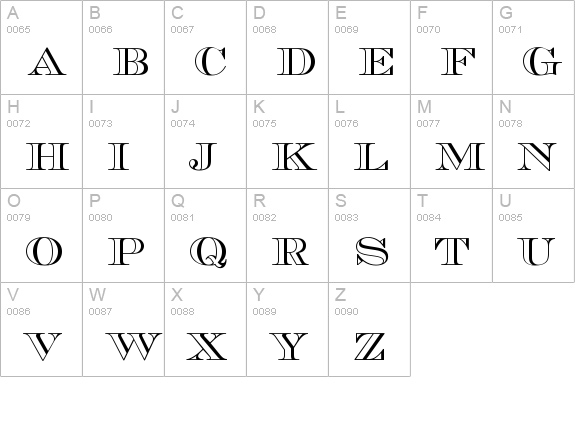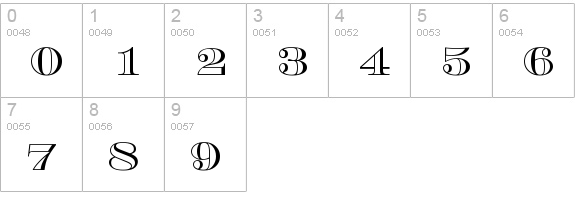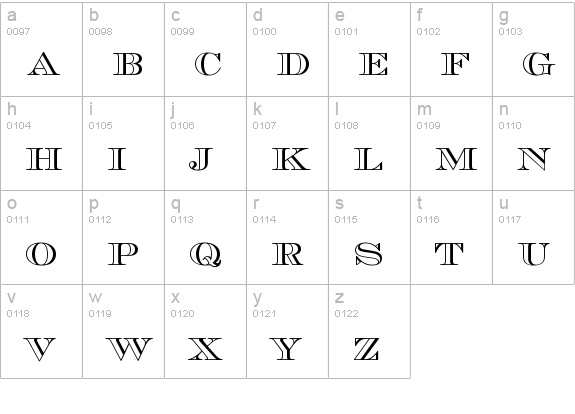
Maurice-Regular Font Details
Maurice-Regular is the standard, neutral variant in the Maurice typeface family \xE2\x80\x94 well suited to general body text, paragraphs, and standard typographic work.
Maurice-Regular font is a classic and elegant typeface perfect for various design projects. With its timeless appeal and sophisticated style, Maurice-Regular is a versatile font that can be used for both headings and body text. The clean lines and balanced proportions of this font make it ideal for creating professional and polished designs. What sets Maurice-Regular font apart is that it is available for free download at FontsMarket.com. This means you can easily access this high-quality font without any cost, making it a valuable addition to your font collection. Whether you are working on print designs, digital projects, branding materials, or any other creative endeavor, Maurice-Regular font is sure to elevate your work with its refined aesthetic and readability. Download Maurice-Regular font today and enhance your design projects with this exquisite typeface.